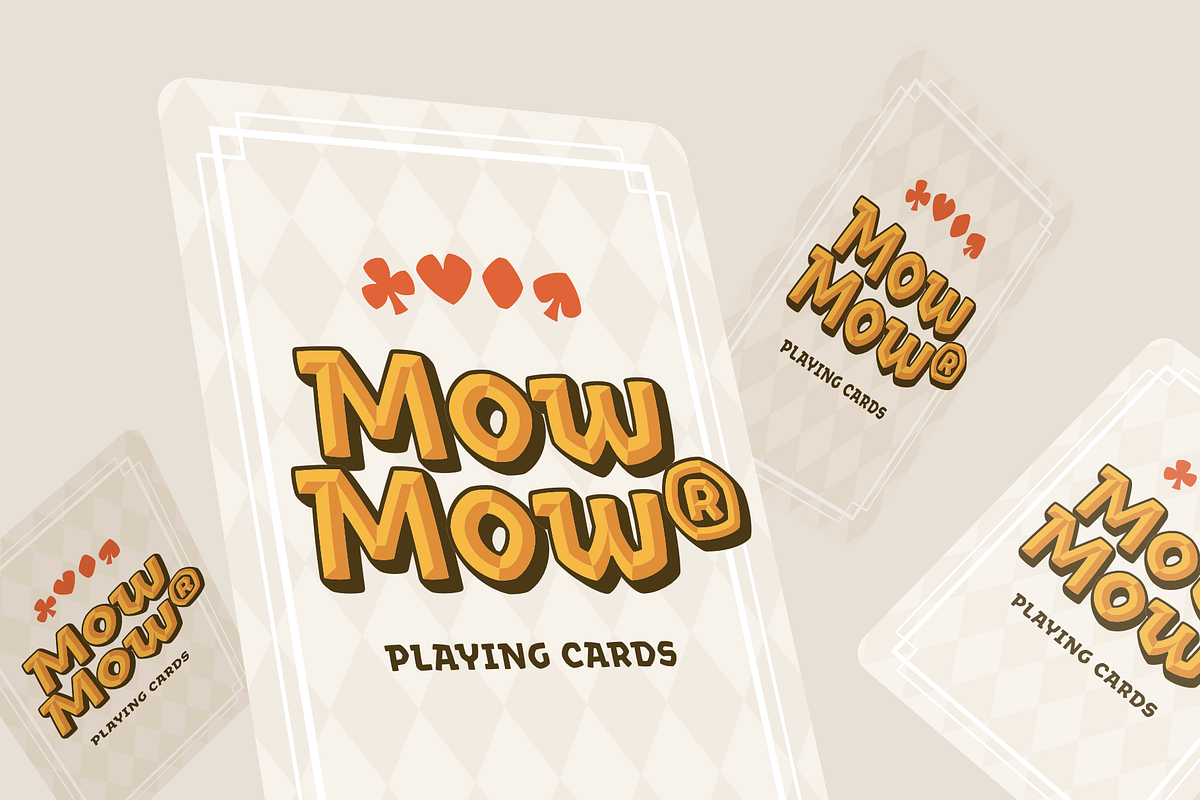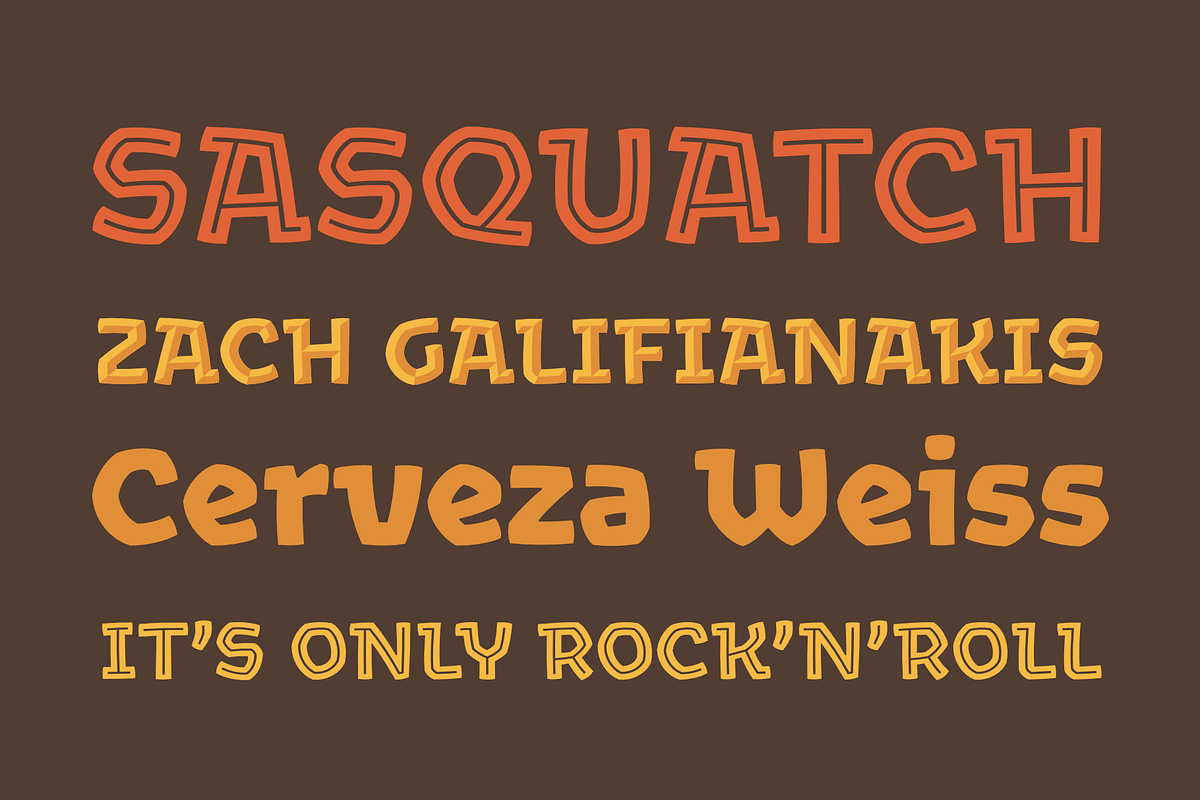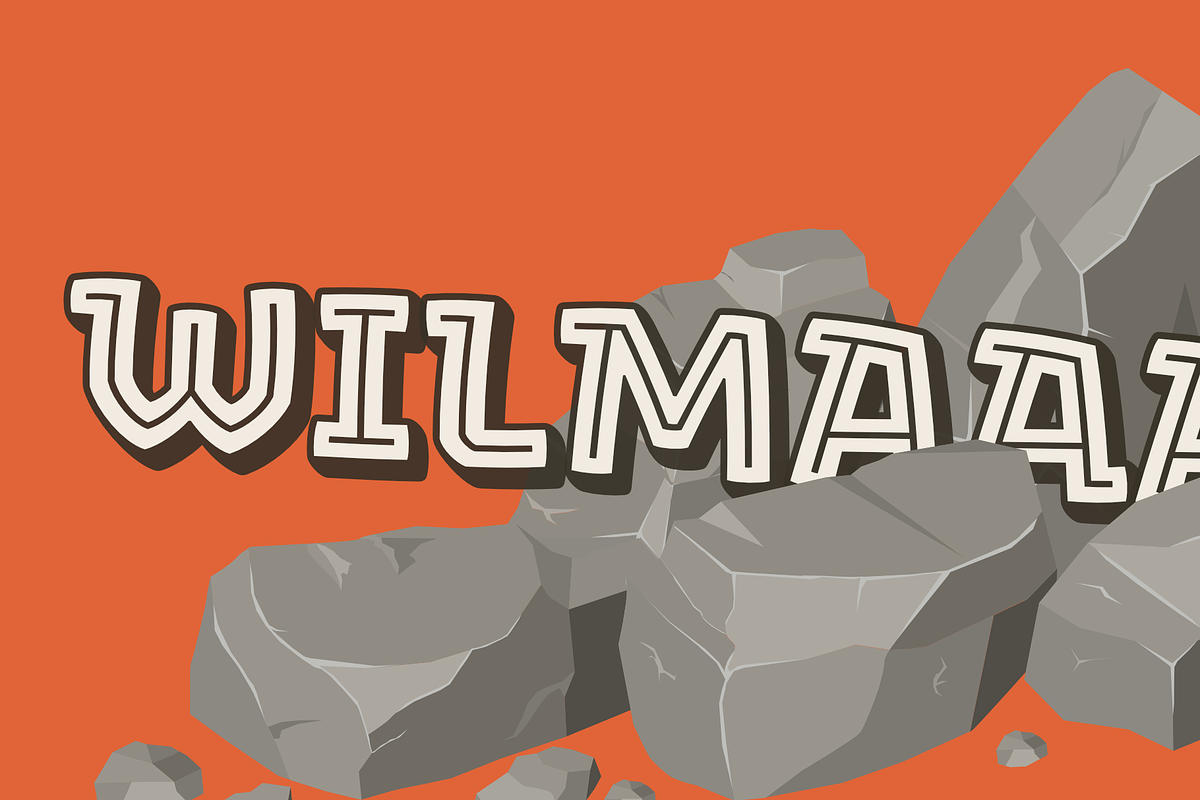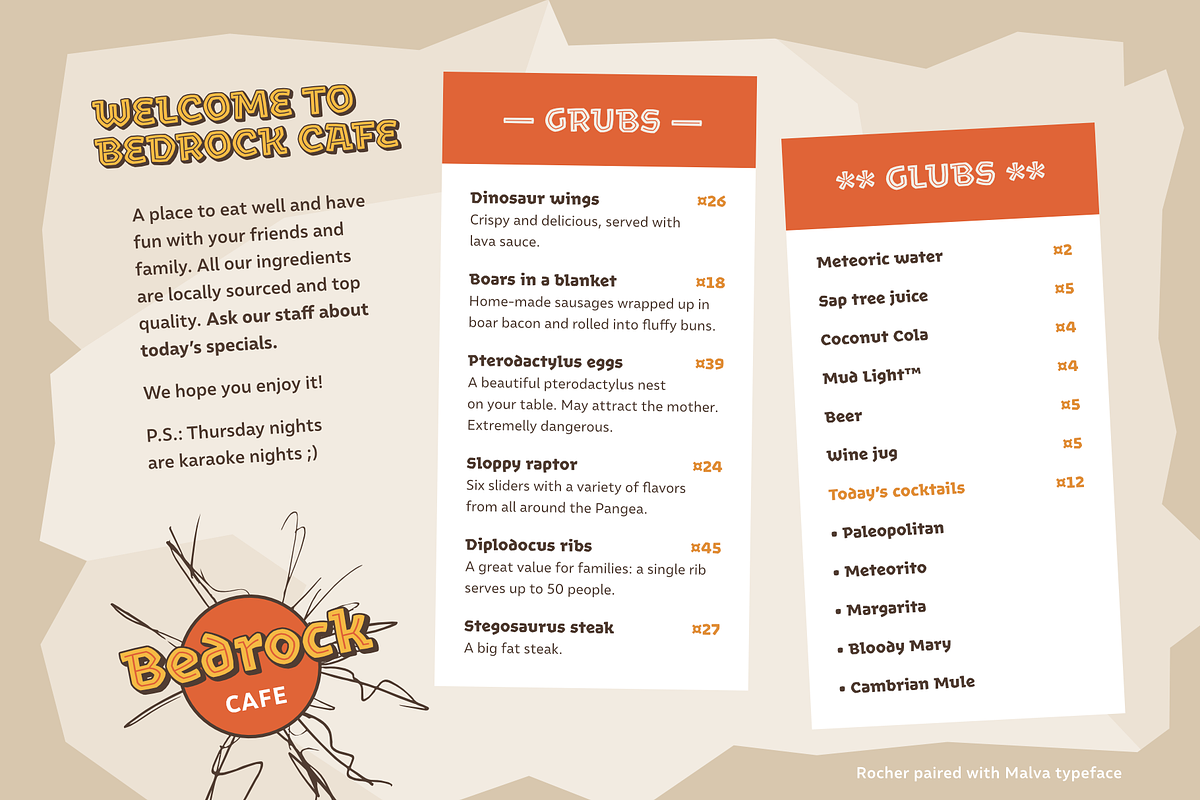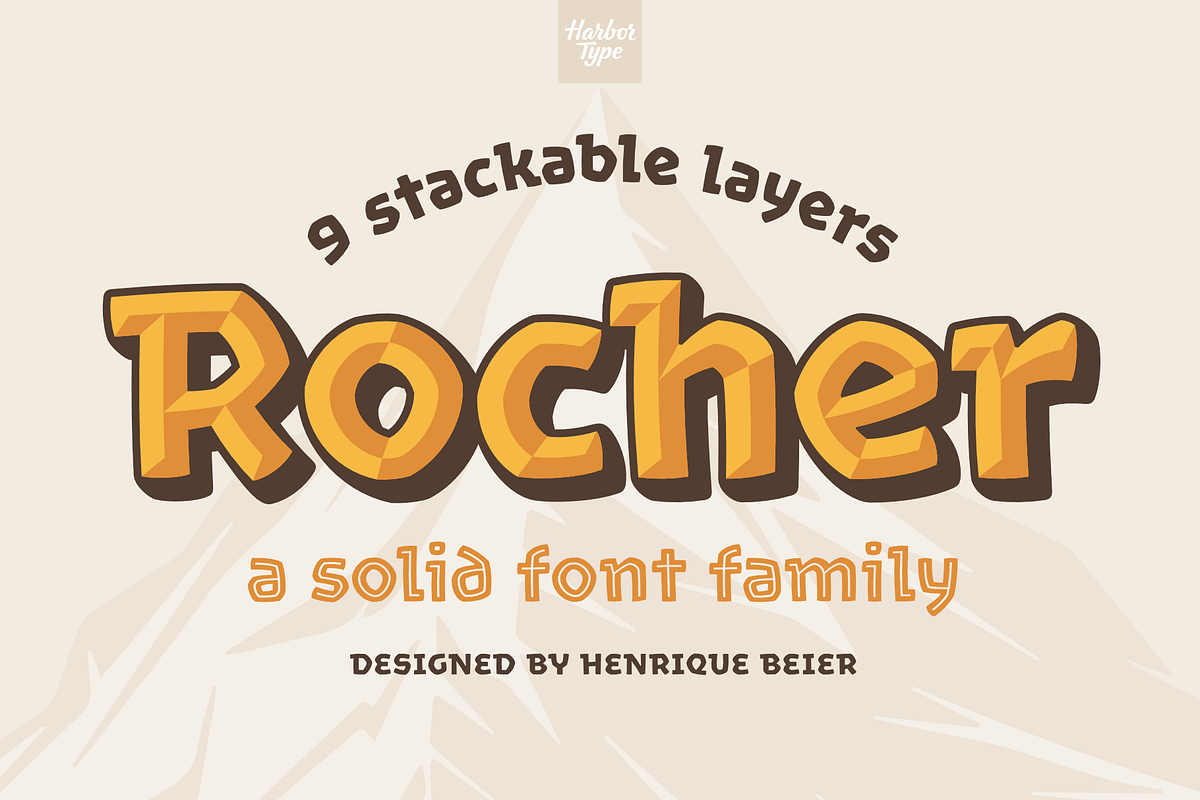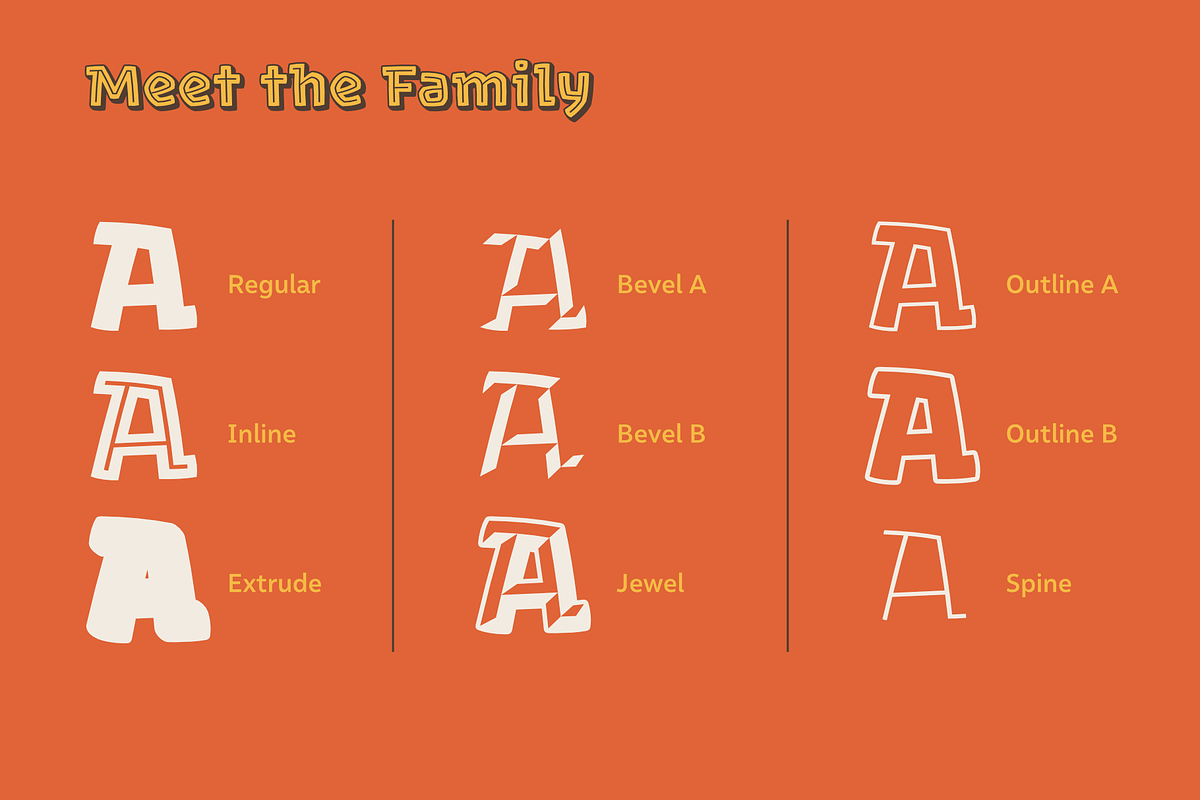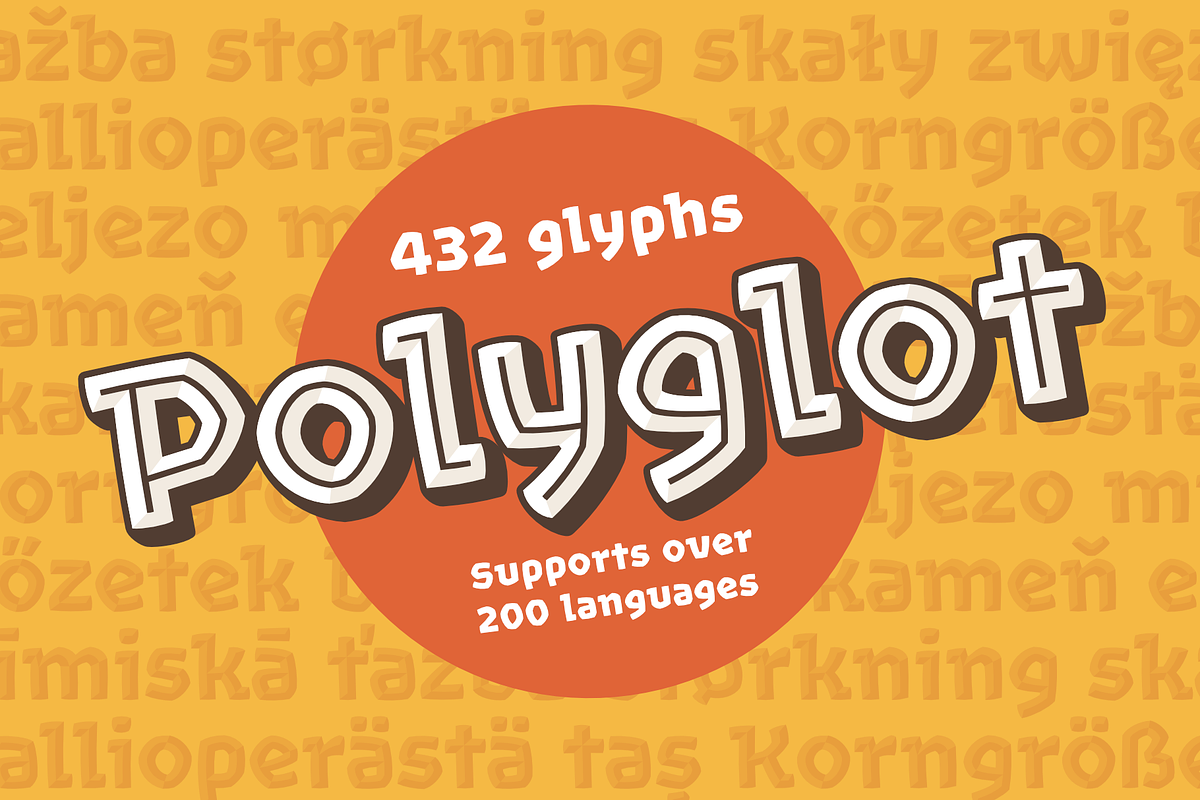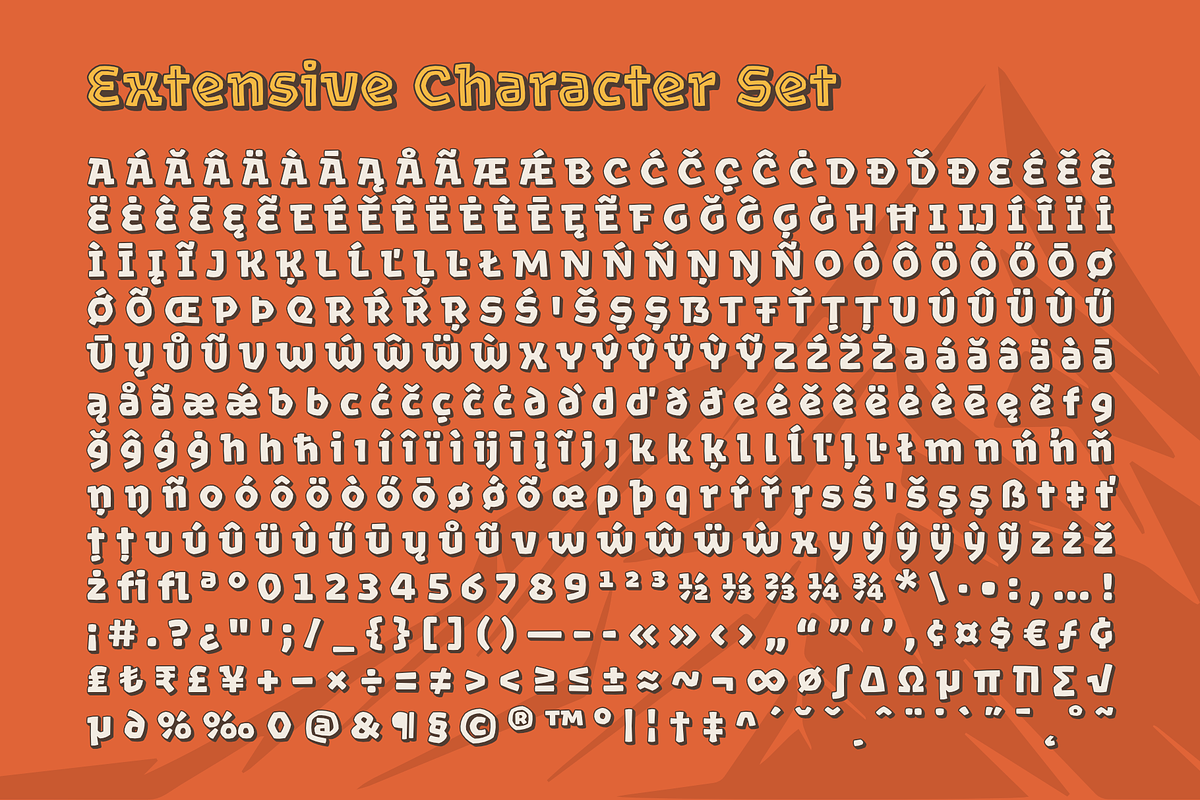
Rocher : layered font family
Rocher was designed while looking for an answer to a simple question: what would a typeface look like if it was made of stone? It certainly would look solid, but did I have to add cracks and rubble so it would resemble rocks? I didn’t think so.
I tackled the problem a different way. I added corners where there usually aren’t any and threw some unusual letterforms into the mix. The result is a typeface that feels like stone, but if you look closely there is nothing inherently stony about it. Unexpected corners provide just the right amount of roughness, while unusual letterforms give the text an informal aesthetic, traces of something naive and handmade.
A family was born when the sturdy letterforms were turned into a series of playful layers. With 9 fonts in total, Rocher can be mixed and matched to create unique layered compositions that add depth to the layout.
I designed Rocher to be used in logotypes, packaging, and headlines. I am confident you will find another handful of scenarios where it can shine.
- Rocher Regular
- Rocher Bevel A
- Rocher Bevel B
- Rocher Extrude
- Rocher Inline
- Rocher Jewel
- Rocher Outline A
- Rocher Outline B
- Rocher Spine